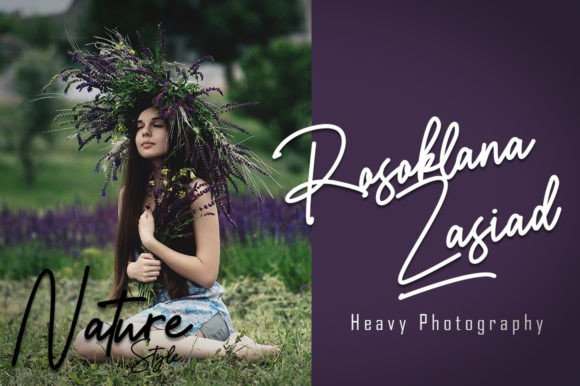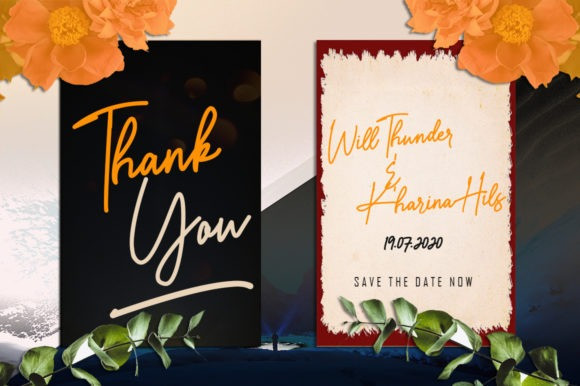
Silverstar Script Typeface
Silverstar Modern Signature Typeface. A collection of letters and numbers suitable your projects also great for Logotype, Branding Design, Logo Design, Digital Lettering Arts, T-Shirt/Apparel, Poster, Magazine, Signs, Advertising Design, and any design needs.
Designer Name: Staircase_Studio